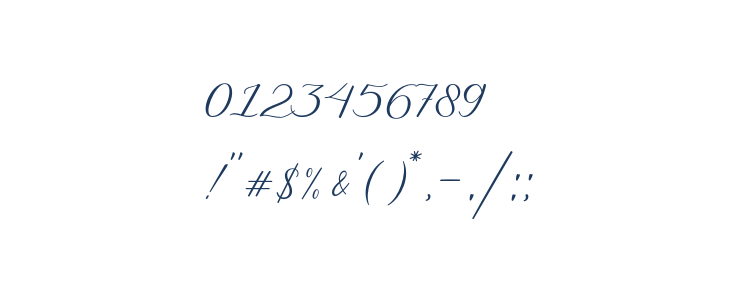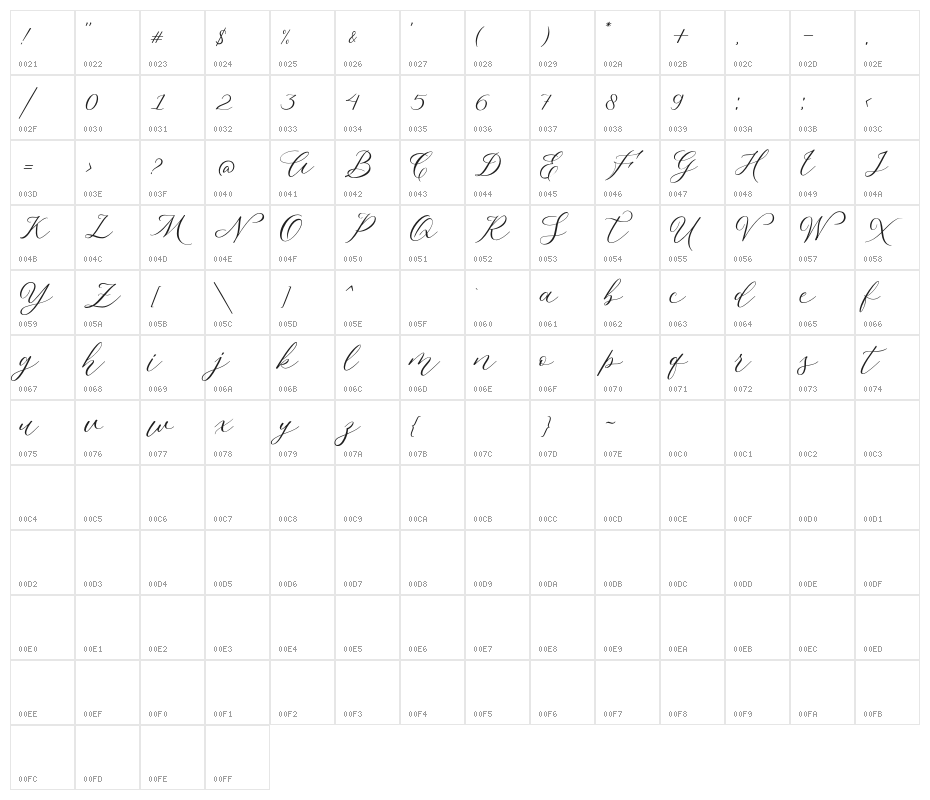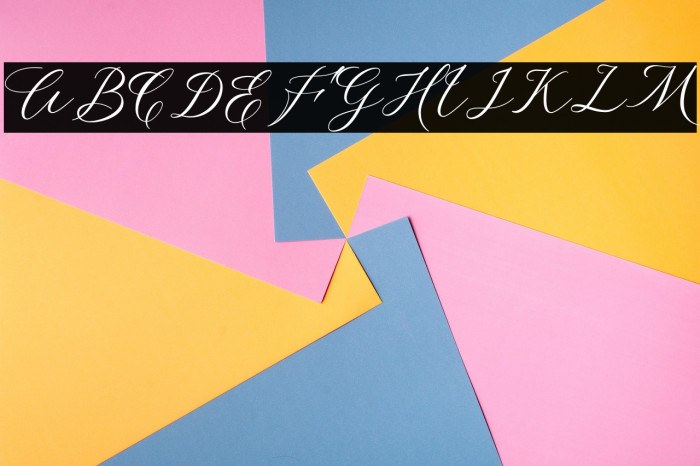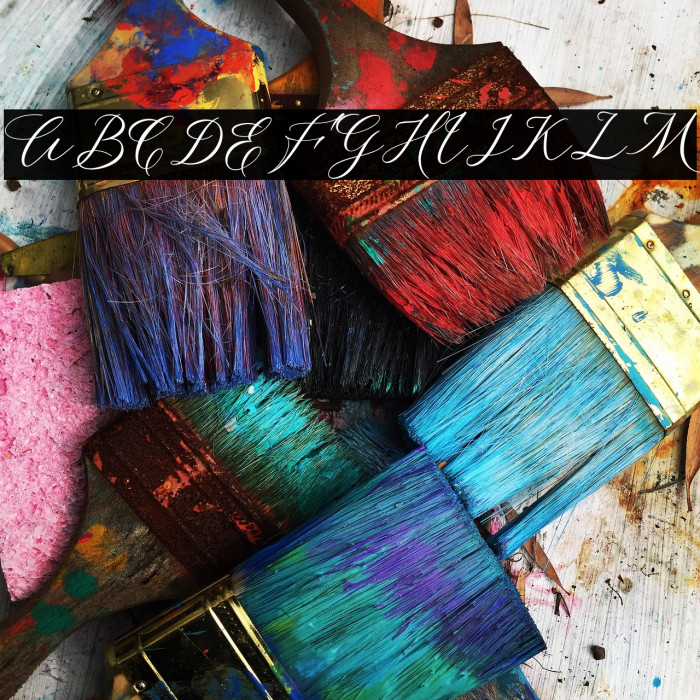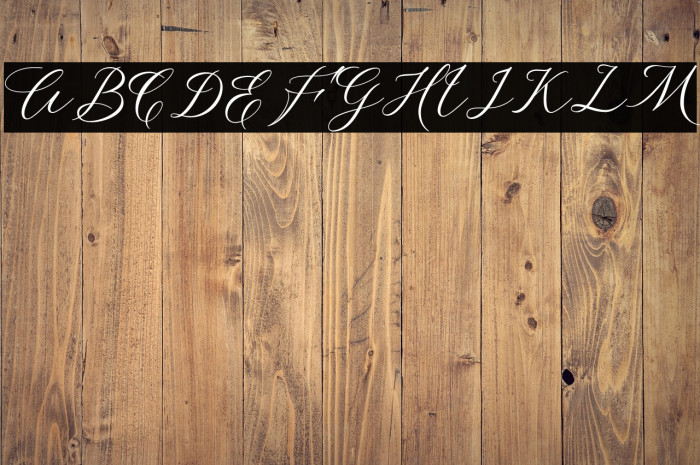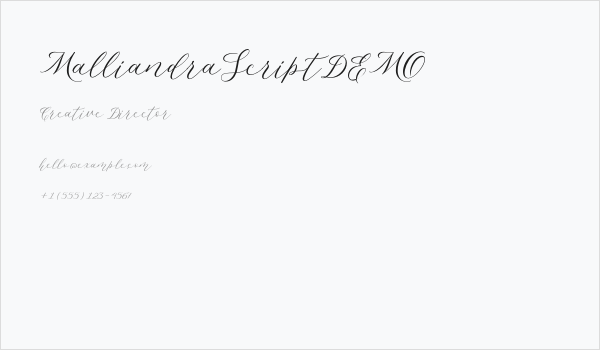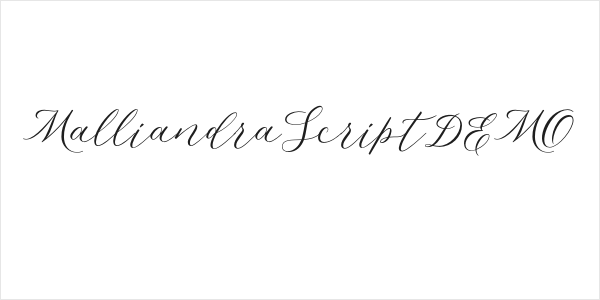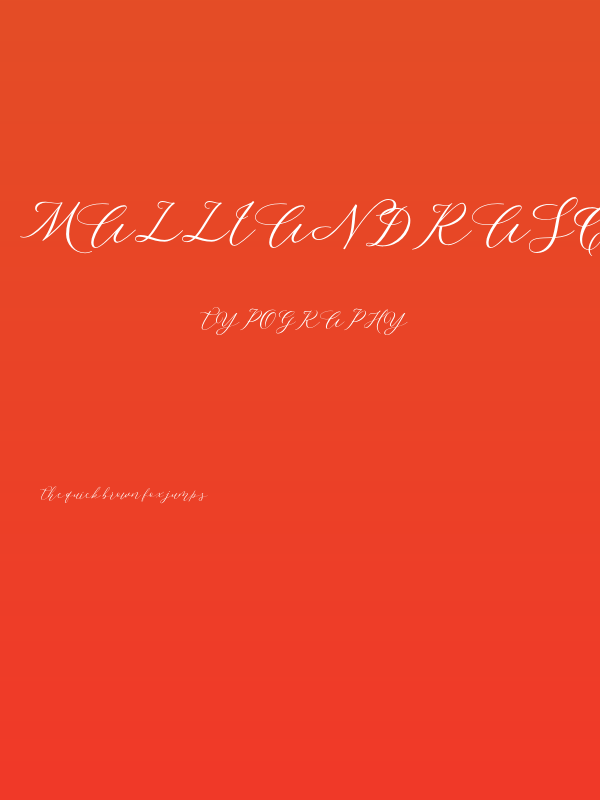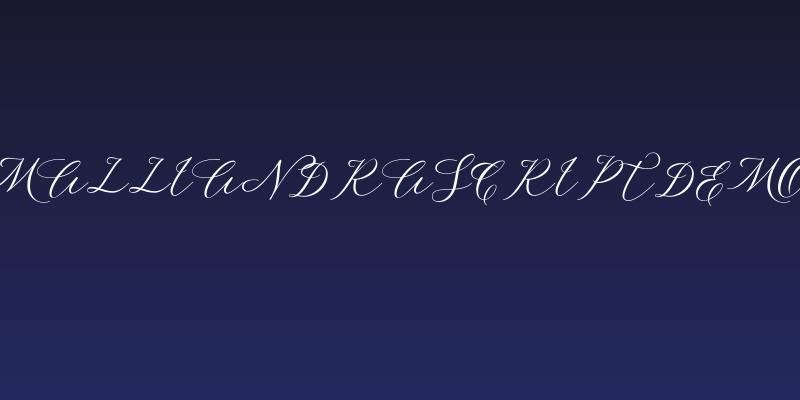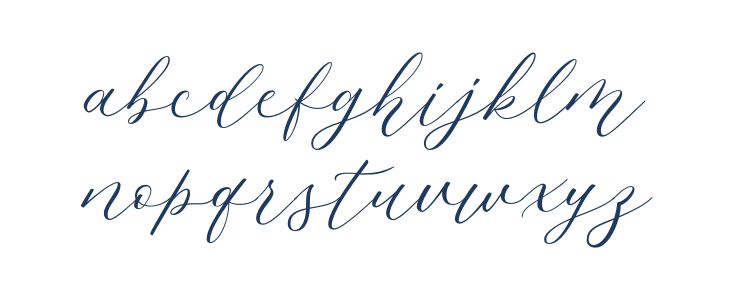
MalliandraScriptDEMO Font
MalliandraScriptDEMO Description
This elegant script font features flowing, cursive letterforms with a sophisticated and graceful appearance. The uppercase letters are ornate, with intricate loops and flourishes that give a sense of movement and fluidity. The lowercase letters maintain a consistent style, with smooth connections and a slightly slanted orientation. The numerals are designed to match the script's aesthetic, featuring similar curves and strokes. The special characters complement the overall style, ensuring a cohesive look across all text elements. This font exudes a sense of elegance and refinement, making it ideal for formal and decorative applications.
| Overall Style | Elegant, Decorative |
| Use Case | Logos, Invitations, Decorative Text |
| Proposed Projects | Ideal for wedding invitations, elegant branding, greeting cards, and decorative signage. |